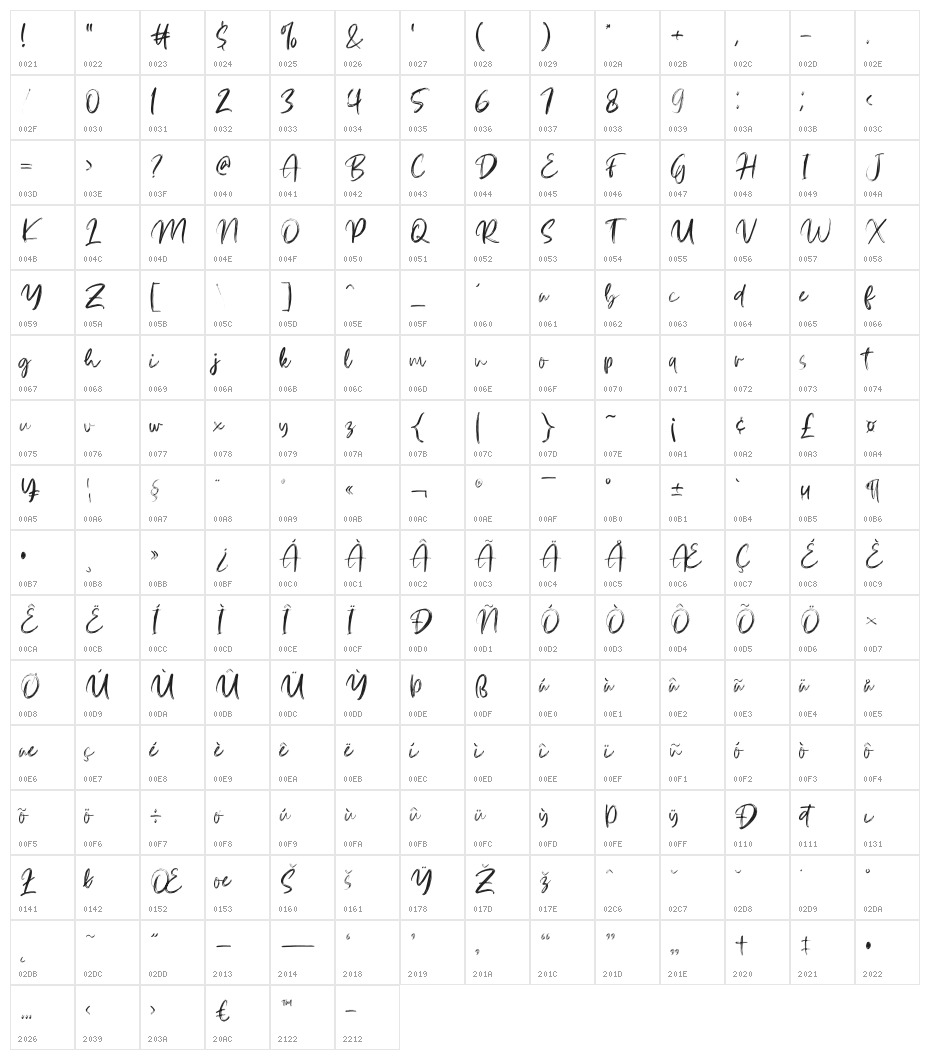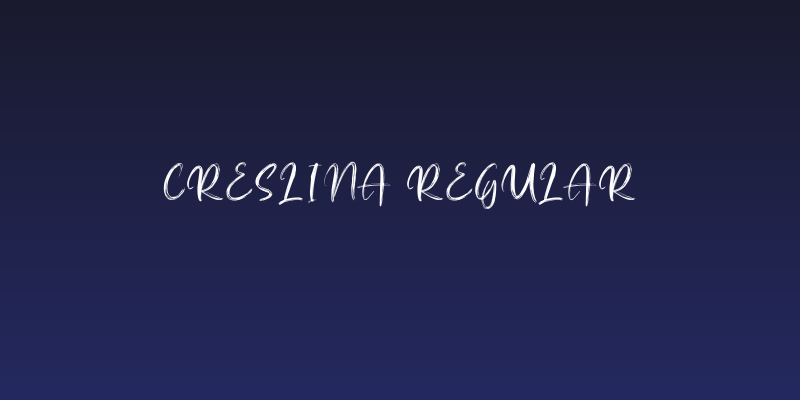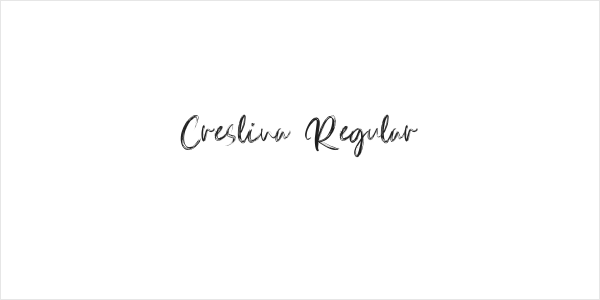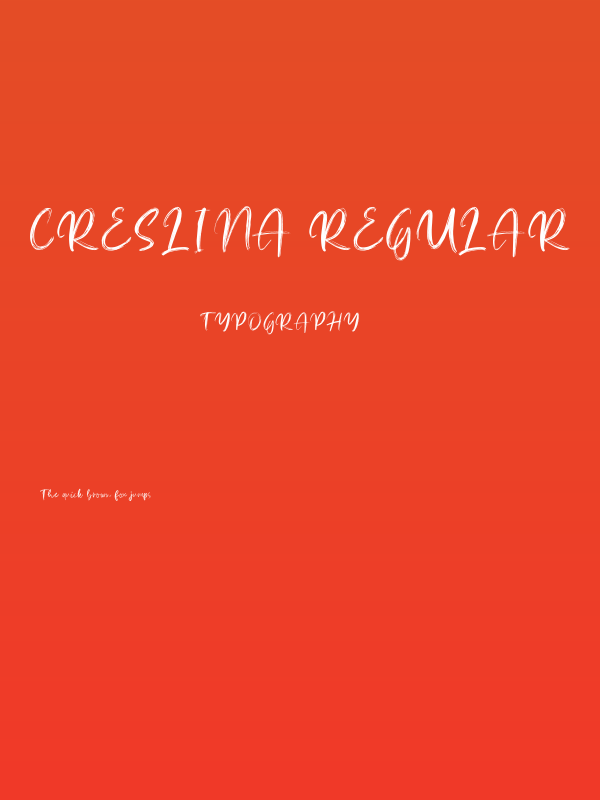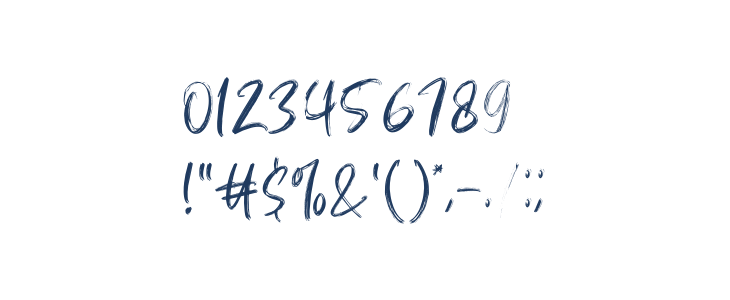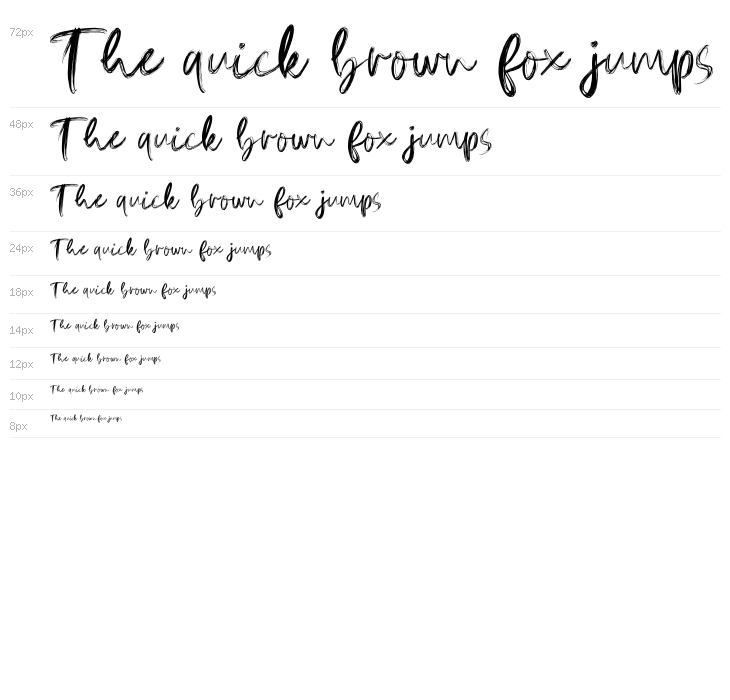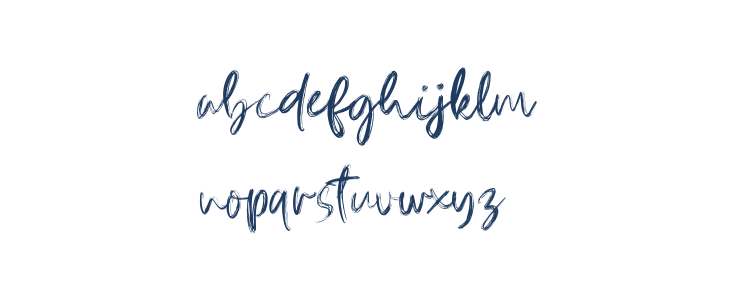
Creslina Regular Font
Creslina Regular Description
This font exhibits a dynamic and expressive handwritten style, characterized by its fluid and organic strokes. The letters are crafted with a brush-like texture, giving them a lively and artistic appearance. The uppercase and lowercase characters maintain a consistent flow, while the numbers and special characters integrate seamlessly with the overall design. The strokes vary in thickness, adding a sense of movement and energy to the text. This font is ideal for projects that require a personal and creative touch, such as invitations, greeting cards, and artistic branding.
| Proposed Projects | Ideal for invitations, greeting cards, artistic branding, and creative projects. |